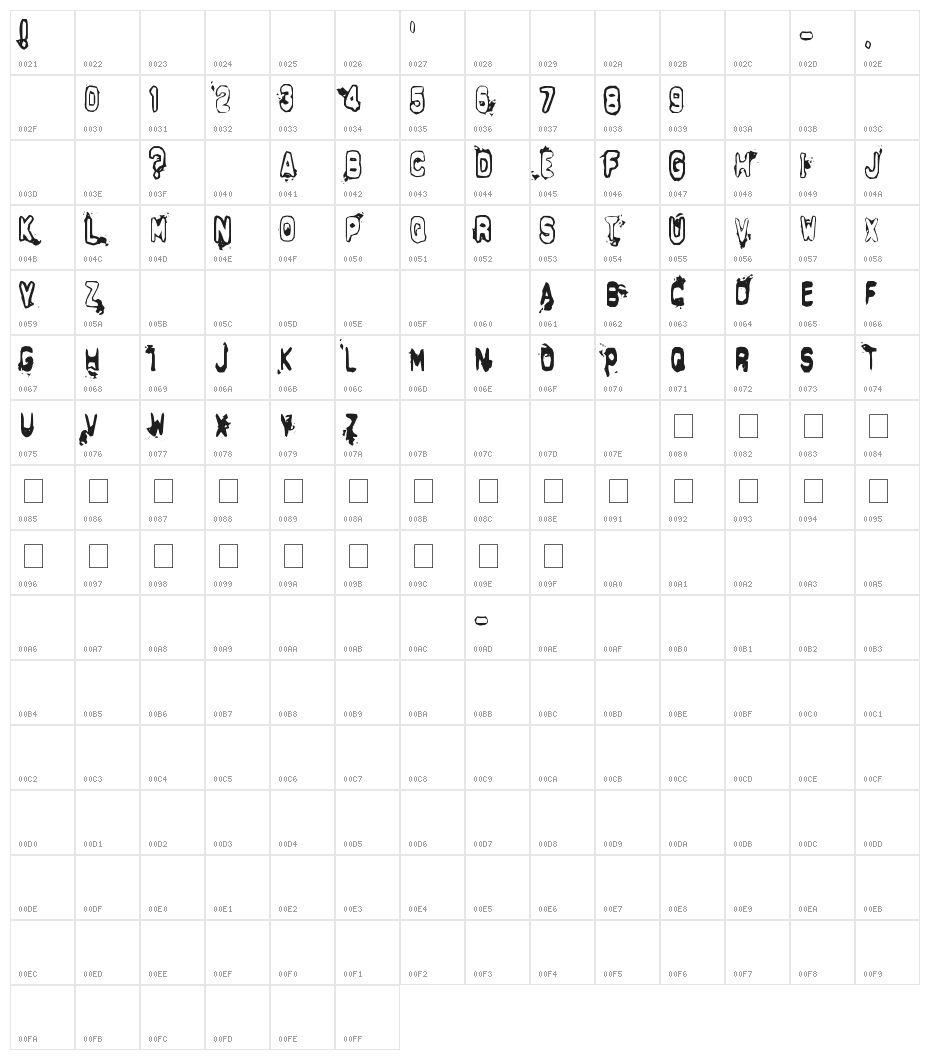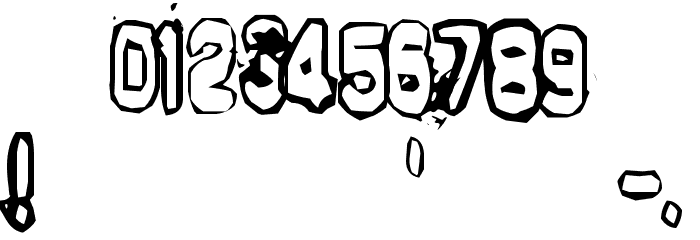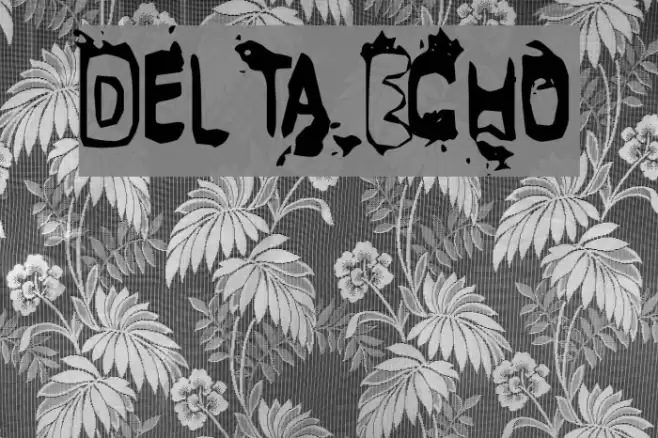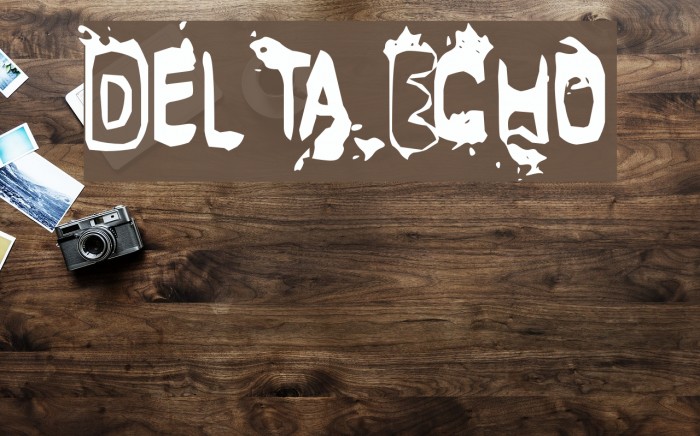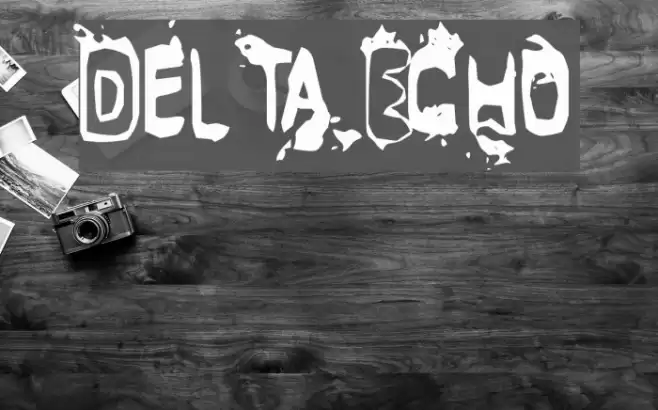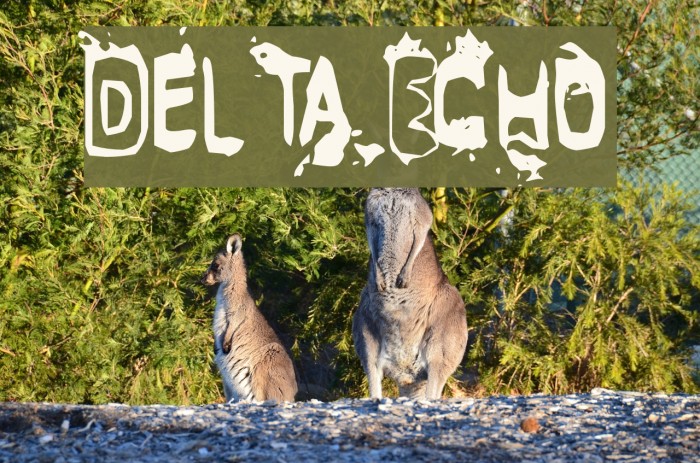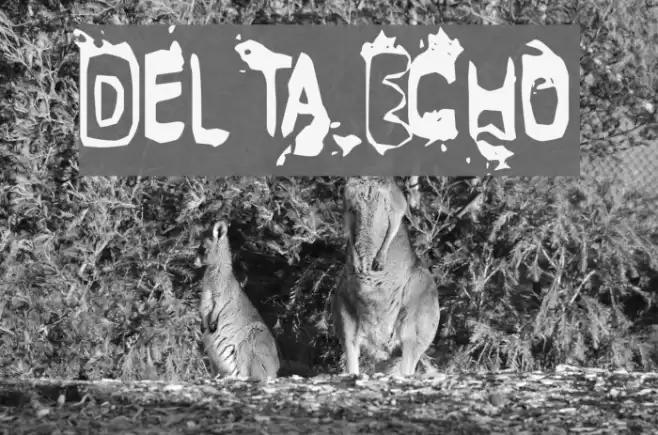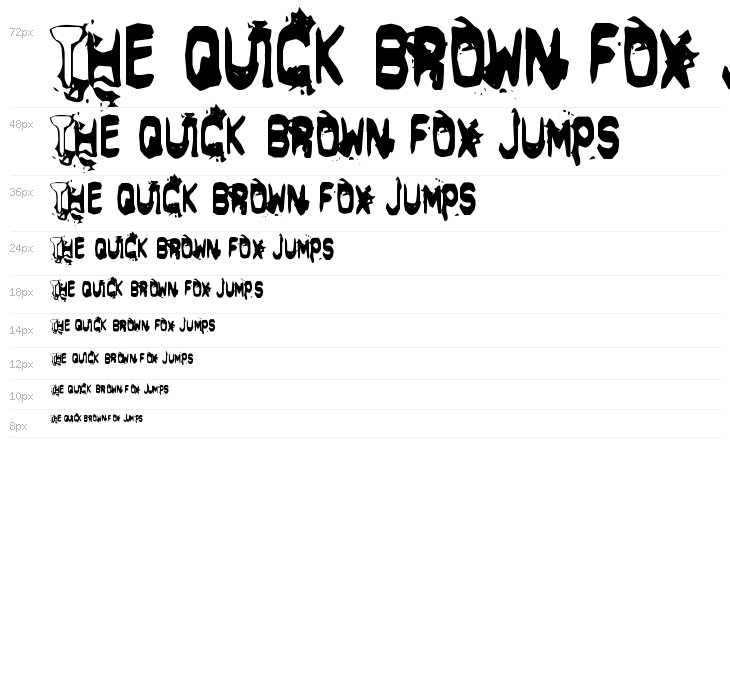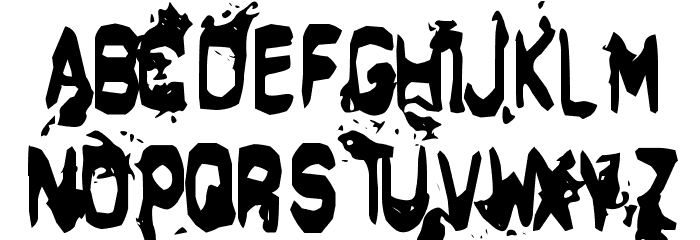
Delta Echo Font
| Gesamtstil | Edgy, Chaotic, Distressed |
| Vorgeschlagene Projekte | Ideal for posters, album covers, video game graphics, or any project needing a gritty, rebellious aesthetic. |